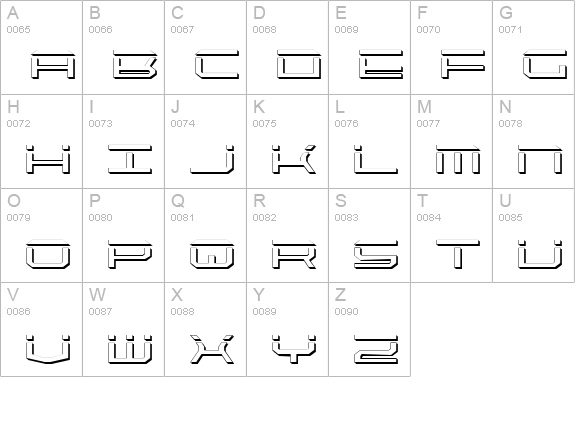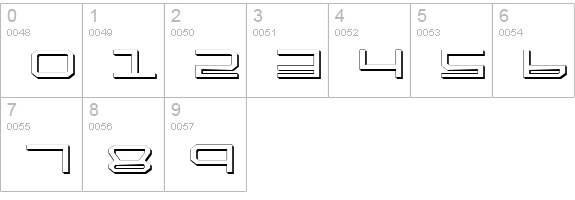
Introducing QuickTech Shadow, a powerful and dynamic font that exudes a sense of energy and modernity. This font is perfect for those looking to make a bold statement with their designs, whether it's for a logo, website, or any other creative project. With its sleek and sharp edges, QuickTech Shadow commands attention and effortlessly catches the eye. Its unique shadow effect adds depth and dimension, giving your text a three-dimensional appearance that is both captivating and memorable. But what sets QuickTech Shadow apart from other fonts is that it is not only visually stunning but also freely available to download. That's right, this exceptional font can be yours at no cost, making it an incredible value for designers, businesses, and individuals alike. Thanks to the generosity of FontsMarket.com, you can easily access and download QuickTech Shadow for free. This means you can explore the full potential of this remarkable font without any barriers, allowing your creativity to soar to new heights. So, whether you're a professional designer looking to add a touch of sophistication to your projects or a budding creative seeking a font that stands out from the crowd, QuickTech Shadow is the perfect choice. Download it today and experience the power and versatility of this extraordinary font for yourself.